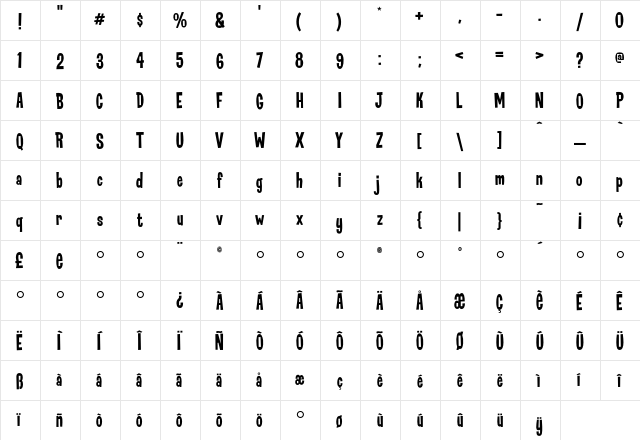
CoopCondensed Regular
Design Context for CoopCondensed Typeface
CoopCondensed offers clean, dependable letterforms without strong stylistic allegiance, making it a practical choice for designers who need flexibility. The condensed width makes it efficient for tight spaces without sacrificing legibility.
Pro Tip: Use CoopCondensed in both headline and body roles to test its range before committing to a single application.